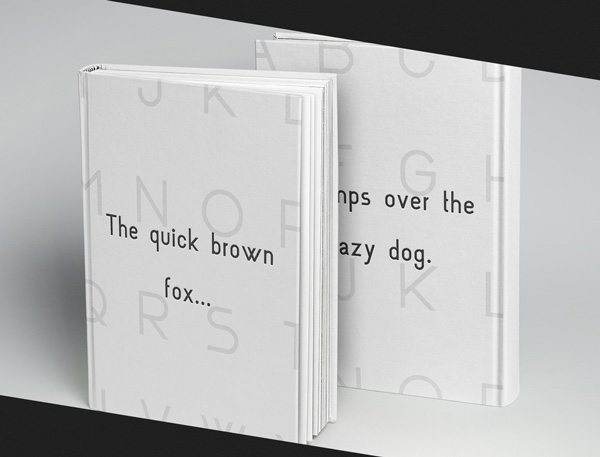
Rhanoll Font
The font is a sans serif modern font, designed for an illustration and it contains 114 glyphes. This font is free to use for personal and commercial projects.